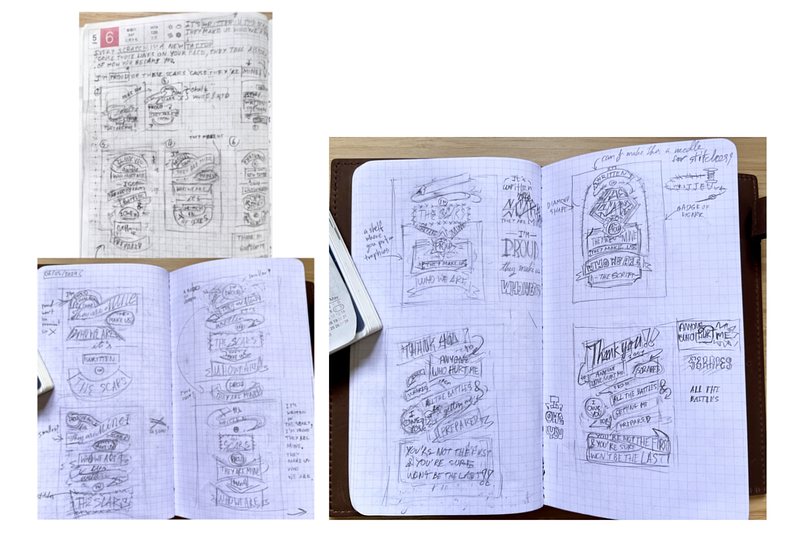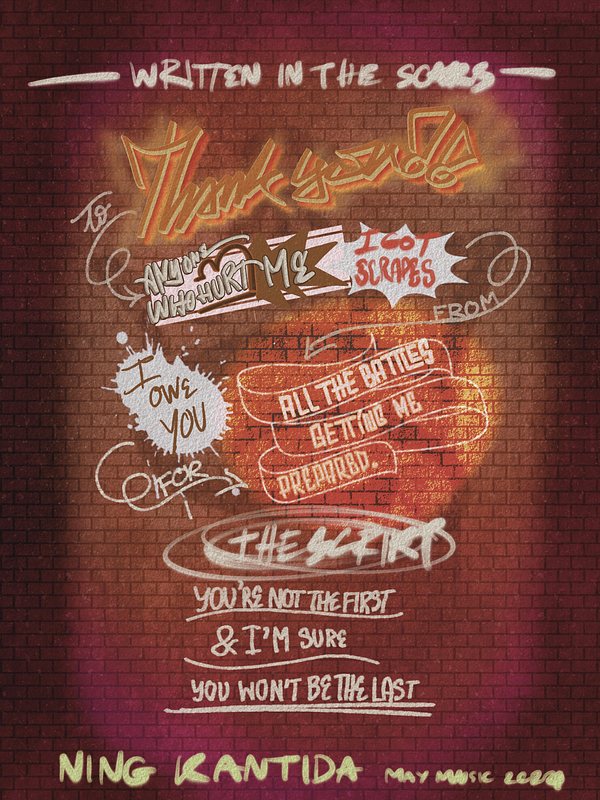
The Lyrics Lettering 00006-Written in the Scars by The Script
The Work
My Lettering Design for Written in the Scars by The Script.
The Inspiration
The Script is my favorite band ever, they have been my favorite band since their first album. I have such fond memories of listening to their music growing up and I even attended every concert they played in my hometown. I was devastated when I heard about Mark Sheehan's passing. Their music has such a powerful impact on me, it can make me laugh, cry, break my heart, and heal my soul. I truly believe that I wouldn't be the person I am today without their music.
It’s hard to choose which song to do the lettering when I love every one of them. I could even spend the whole month dedicated to the lyrics from every song!!
So, I decided to choose the song that I listen to the most because it’s been my go-to every time I go to the gym or want to hype myself up ever since I first heard the song.
The Script has some amazing songs that promote self-love and empowerment. However, "Written in the Scars" takes a unique approach by thanking those who have caused us pain. I love the idea of acknowledging our scars and the people who have hurt us so that they no longer have power over us. Every painful experience we go through becomes a part of our personal growth. Our identity is not written in the stars, but rather in the scars you got and the stories behind each of them. So, let's embrace our scars and the lessons they have taught us!
The Process
I struggled with designing the lyrics for this song because there were so many amazing lines to choose from! I had to select the essence of the song carefully. At one point, I even considered making three different designs! I played around with the idea of incorporating a stitch in a tattoo-like style, but it didn't look right with the small letters, so I had to let go of that idea. I might revisit it for a shorter line, though.
My Lettering Sketches for Written in the Scars by The Script.
Unfortunately, I only had one day to work on this, so I had to choose the one that excited me the most.
The design process wasn't any faster. I wanted a graffiti style to match the song's title, "Written in the Scars." So, I spent most of my time sifting through thousands of brushes to find the perfect ones! I wish there was a search function for brushes in the app. I kept forgetting which brushes went with which colors and sizes, and I had to go back and forth multiple times. So, don't even ask me about the brush settings, I have no idea myself, LMAO. 😂